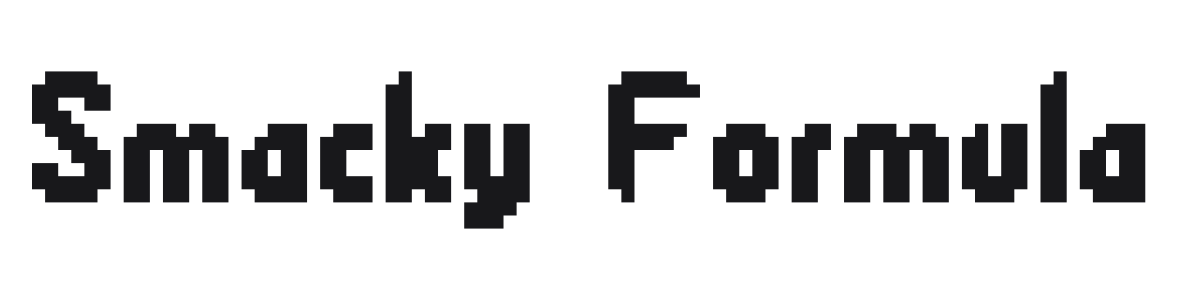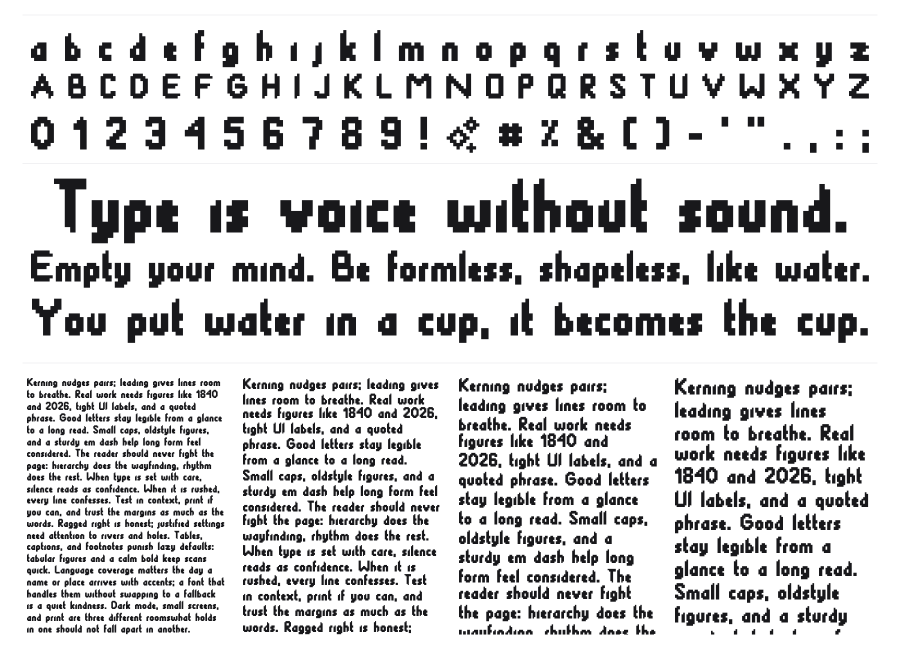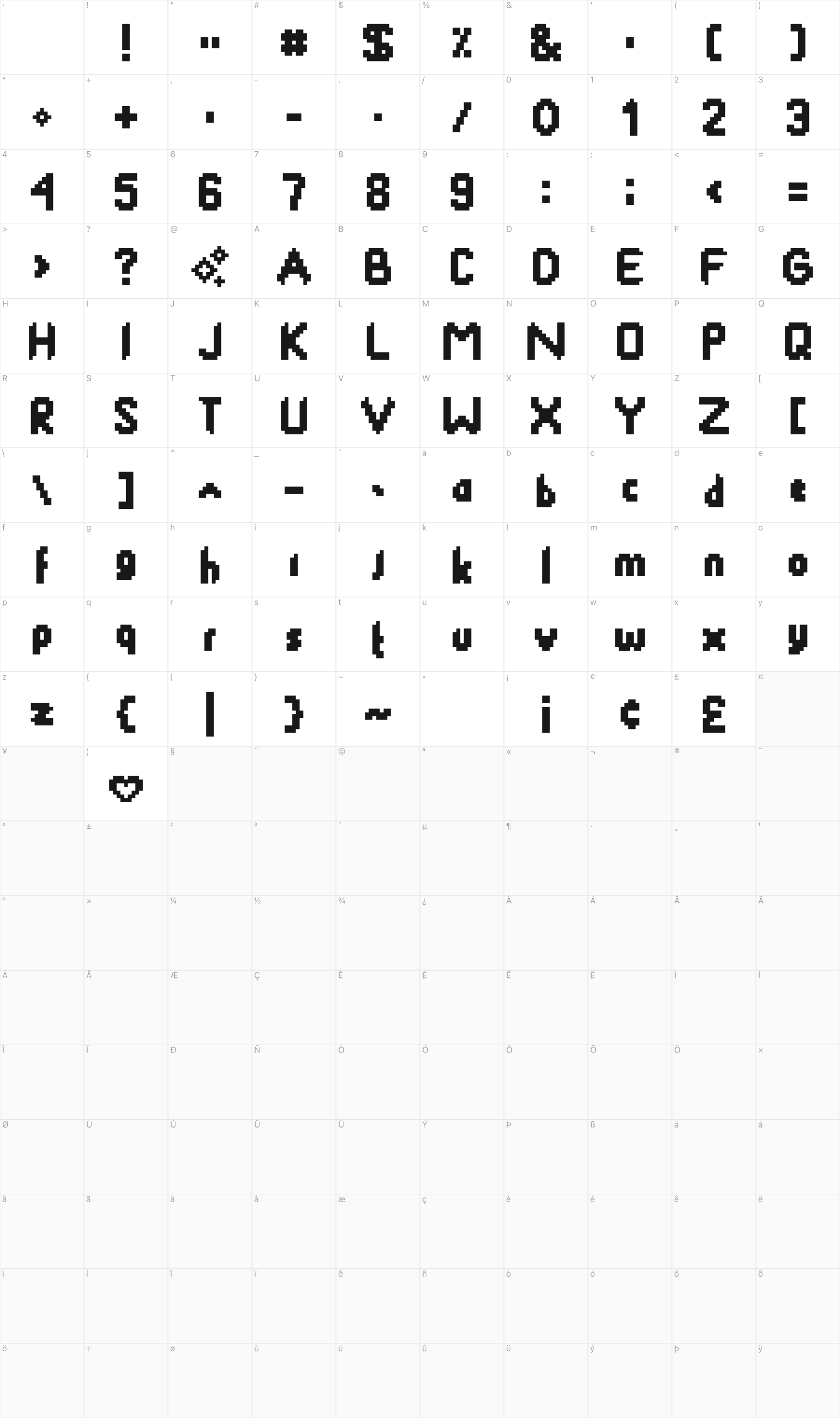
Smacky Formula
Smacky Formula is a bold 8-bit bitmap font built on a coarse pixel grid with thick, blocky strokes and no stroke contrast. Every character reads like a classic arcade screen, heavy and square with that unmistakable rasterized crunch. It brings instant retro gaming energy to headlines, logos, and packaging.